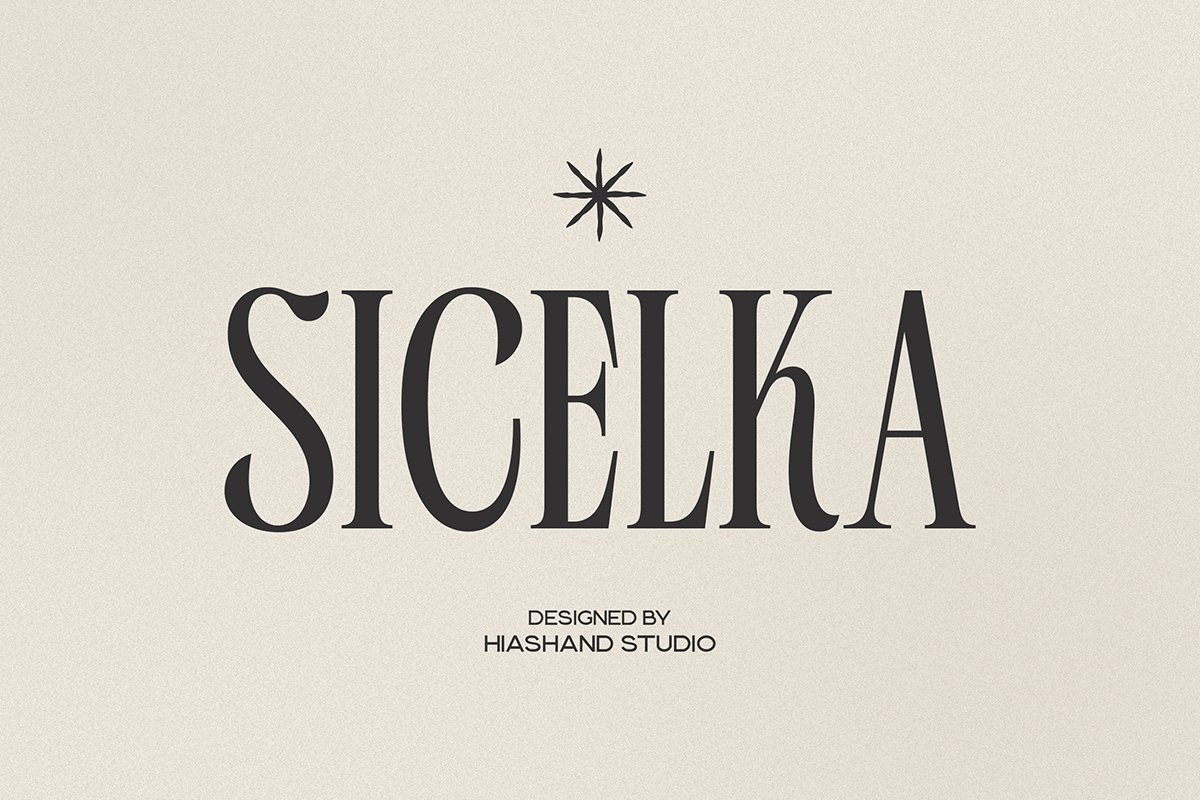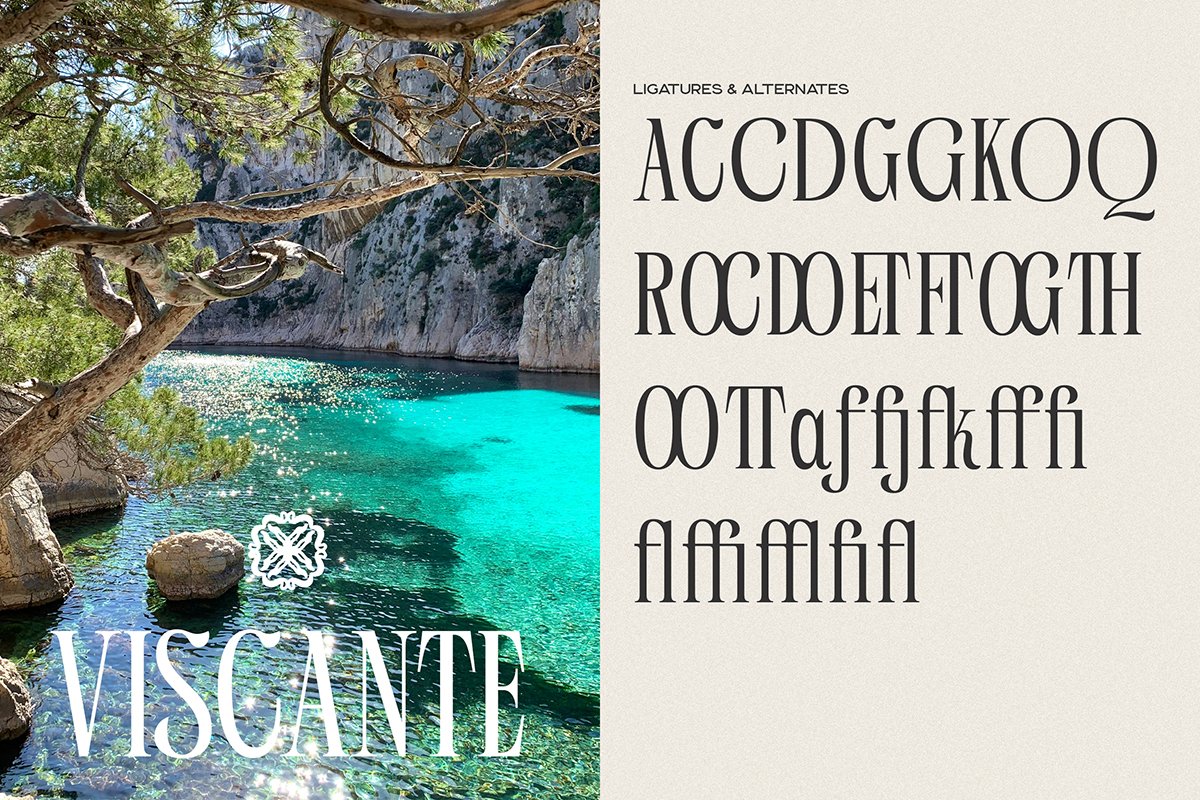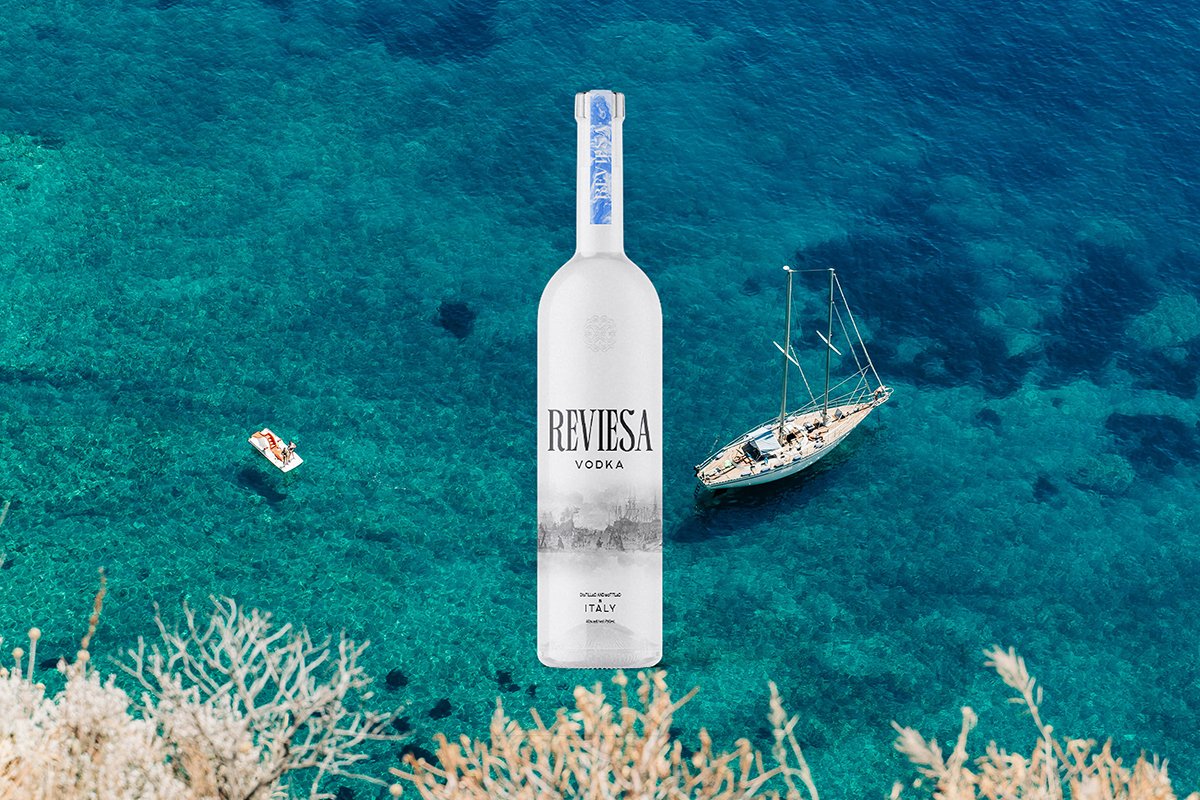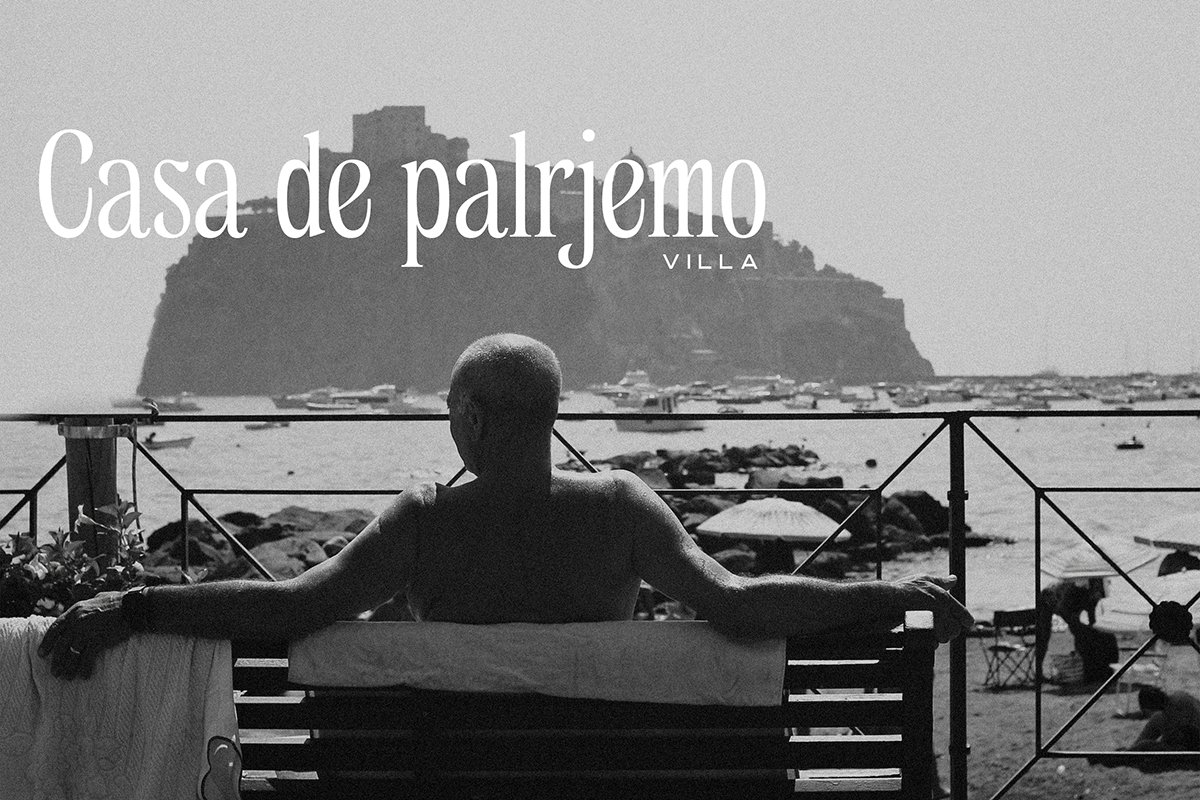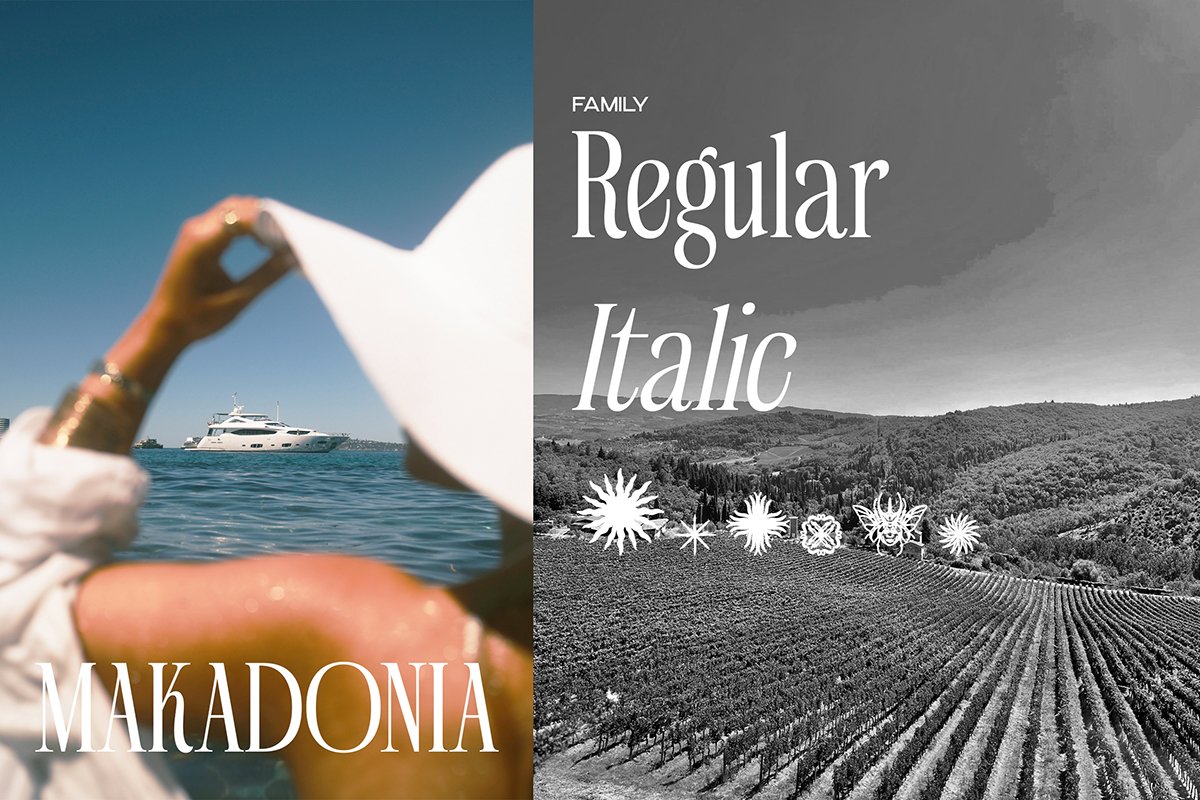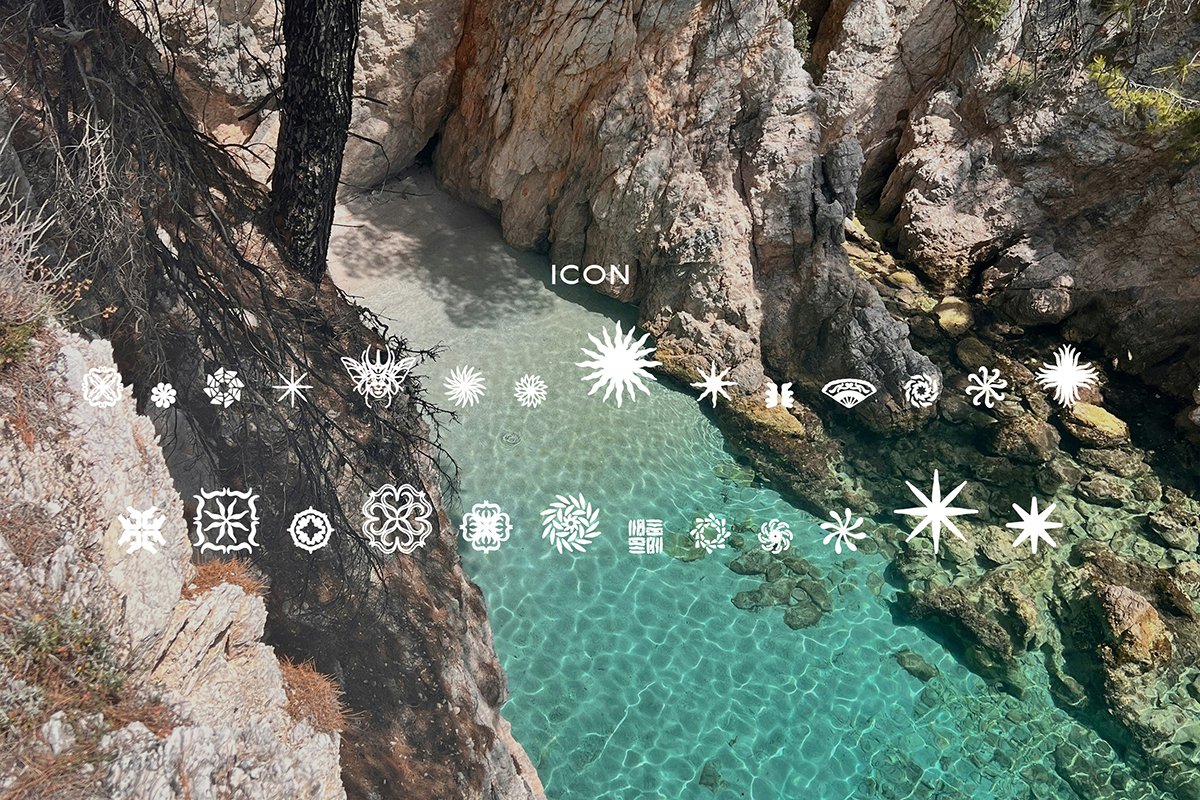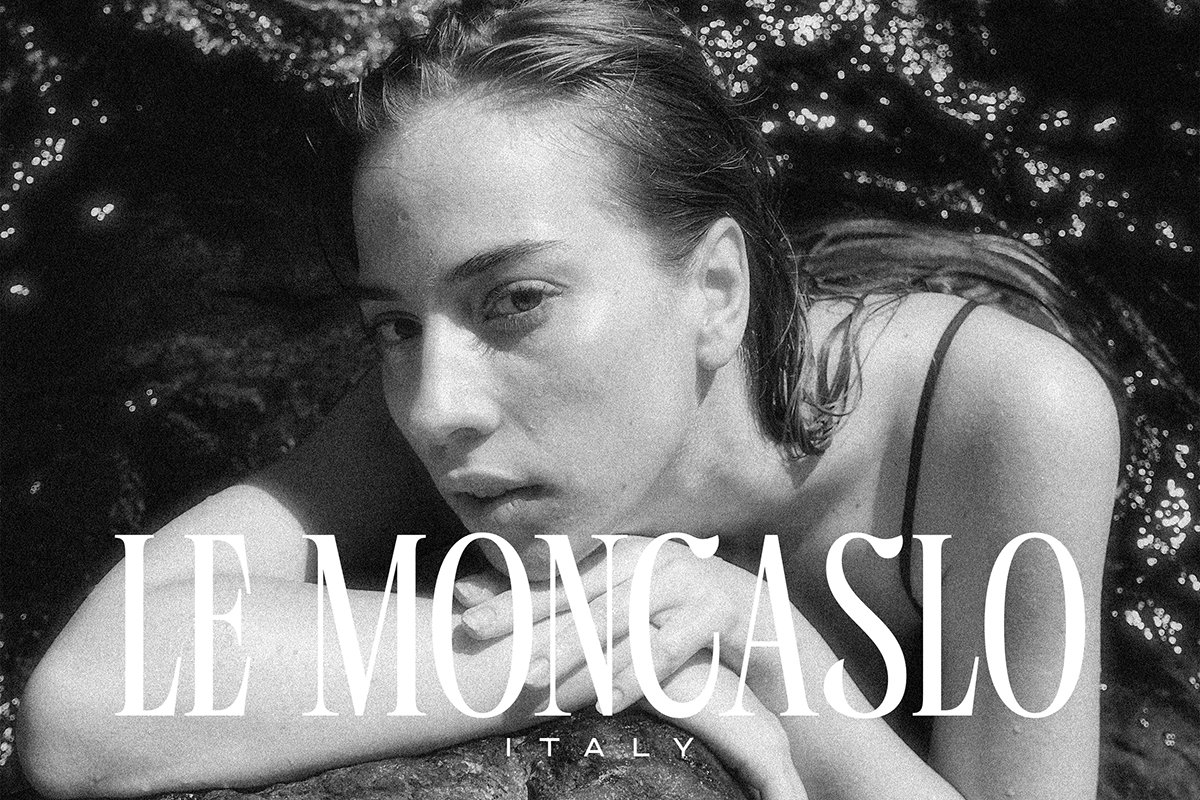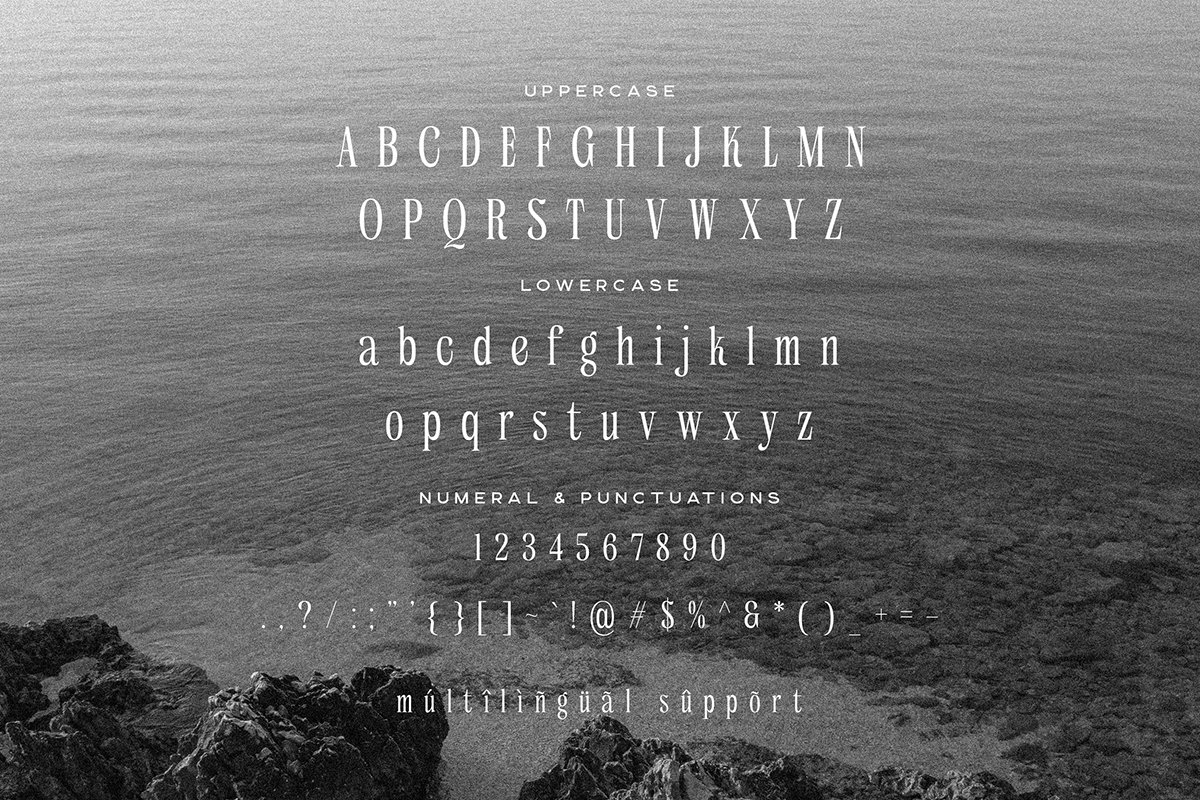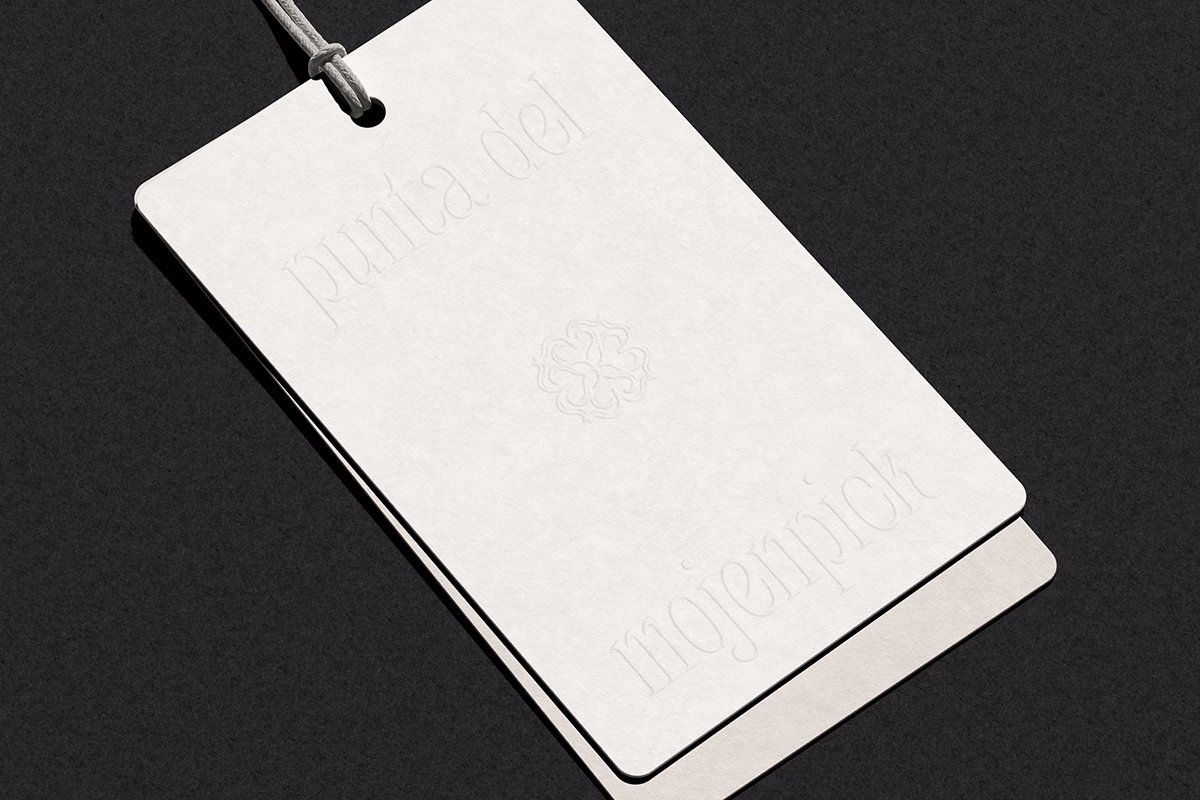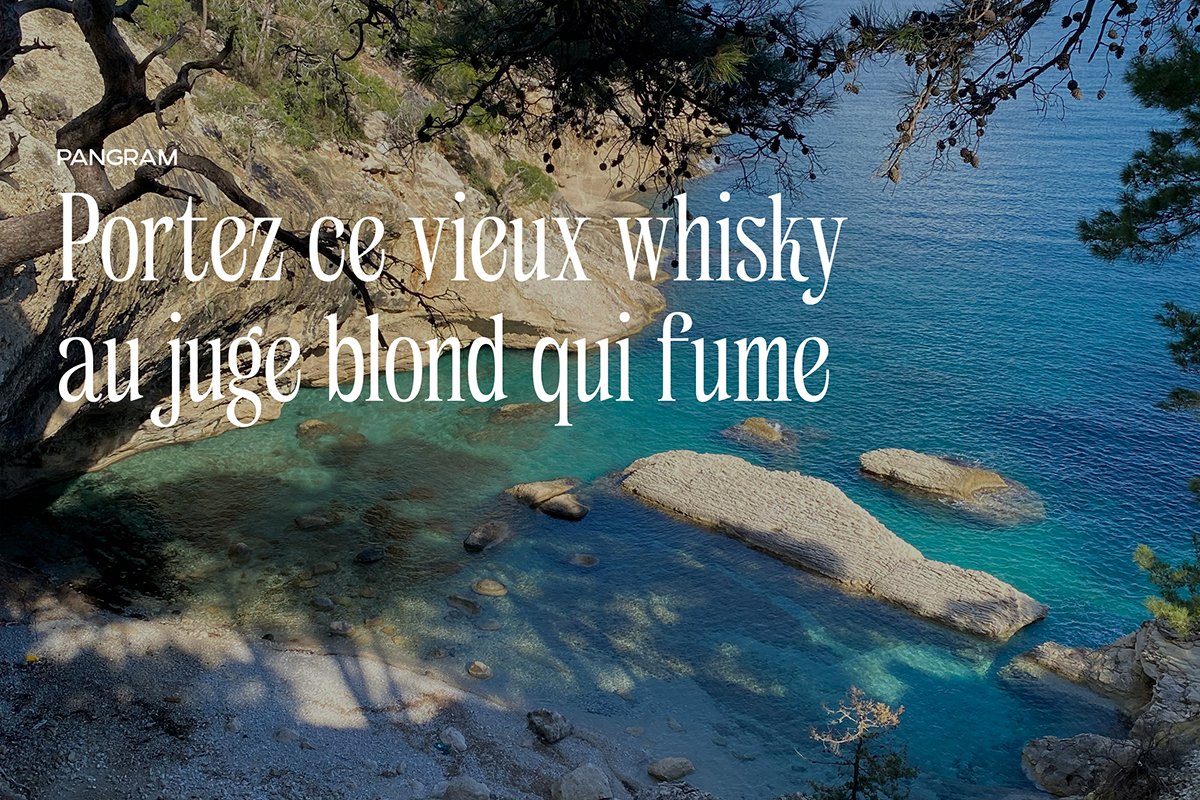
Sicelka Serif Display Font is a sophisticated display serif typeface that epitomizes the intersection of towering architectural grace and modern luxury. Designed with a deliberate emphasis on verticality and refined proportions, it serves as a visual testament to high-end aesthetics and timeless prestige. Its elongated letterforms and slender structures create a striking silhouette that feels both contemporary and classic, making it an essential asset for designers who seek to elevate their visual storytelling.